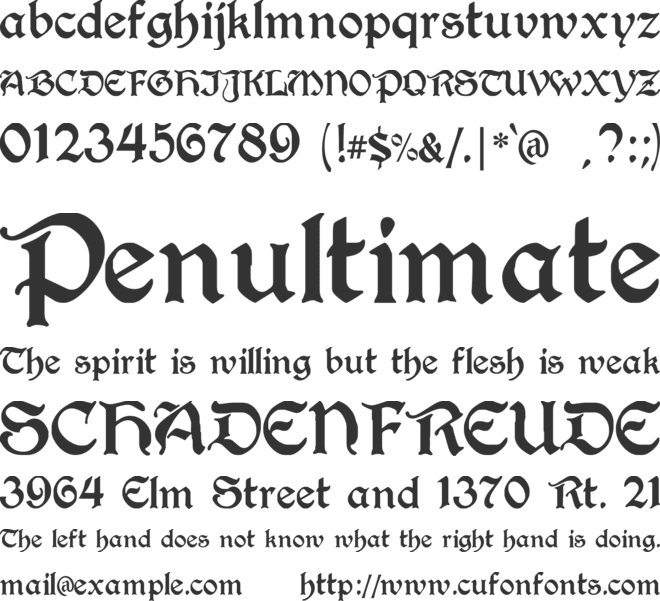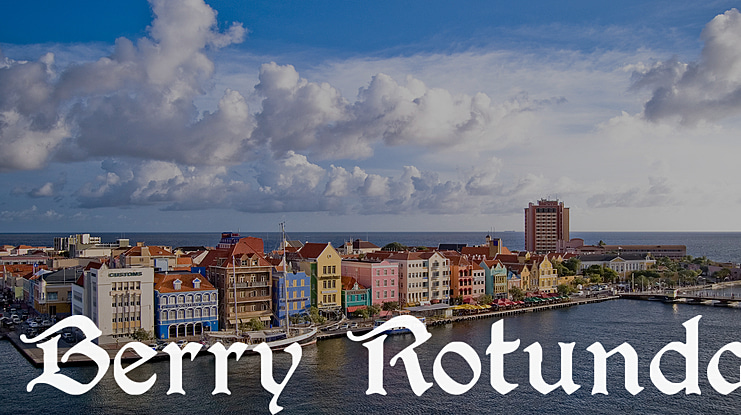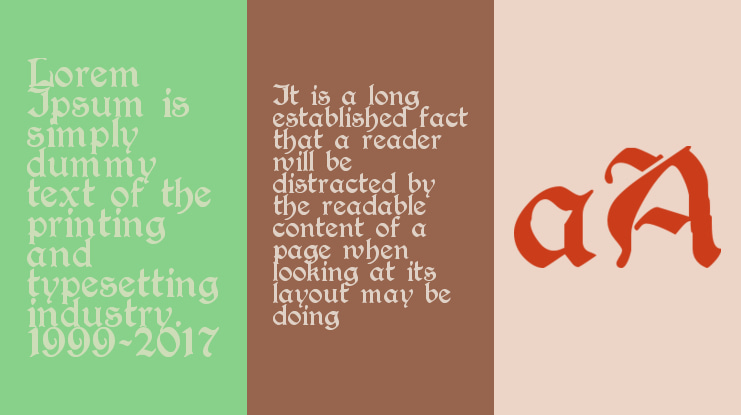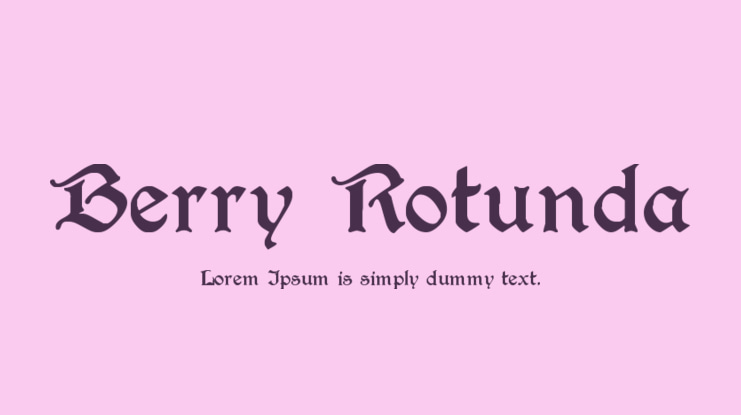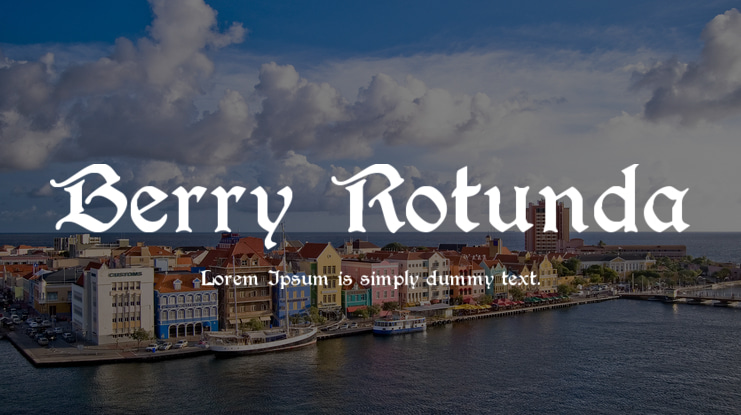
Berry Rotunda Font
Inspired by Nicolas Jenson & William Morris
This Rotunda text type is very well suited for lengthy text setting. It is beautiful and easily readable even in small text sizes. It comes with a wealth of special characters to cover many European languages (German, French, Swedish). The font is public domain, free for all uses, commercial and private.